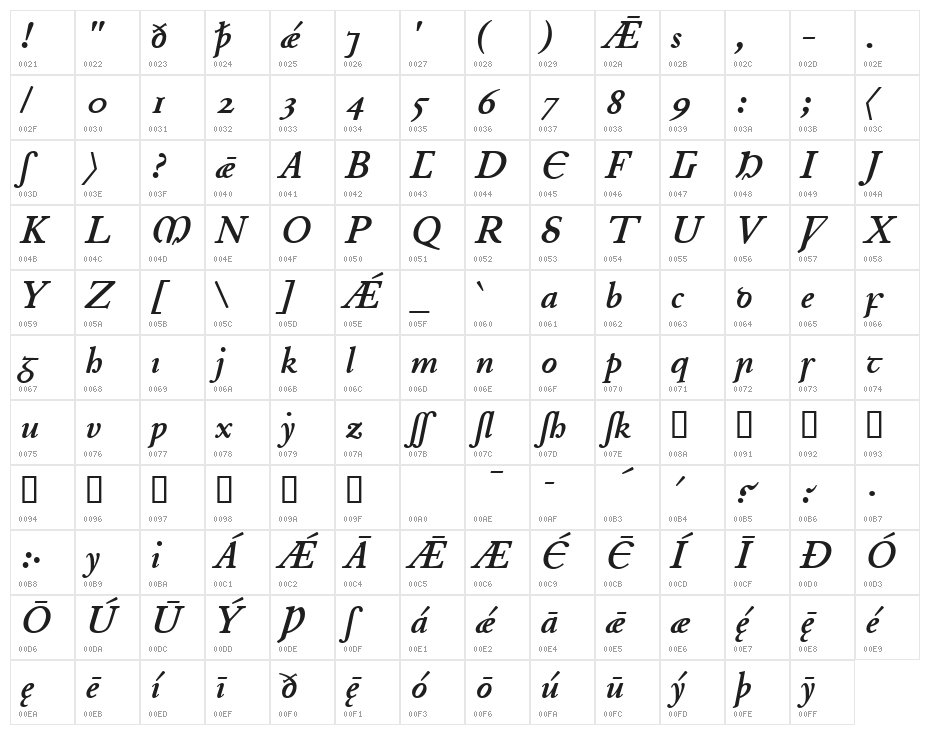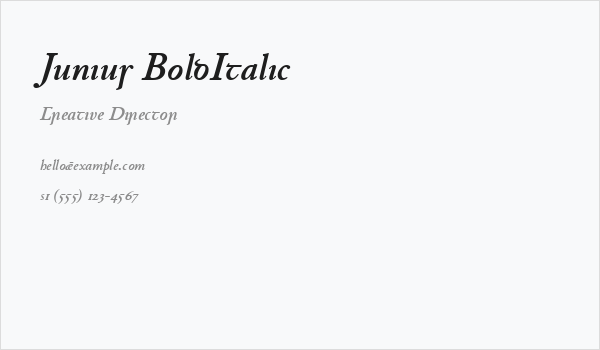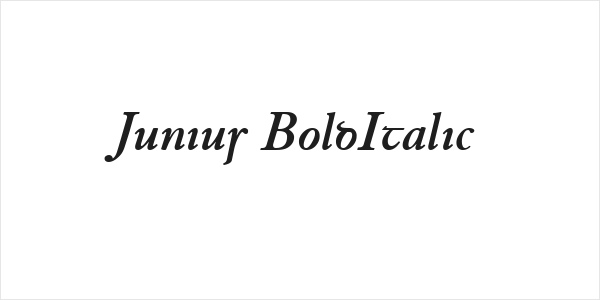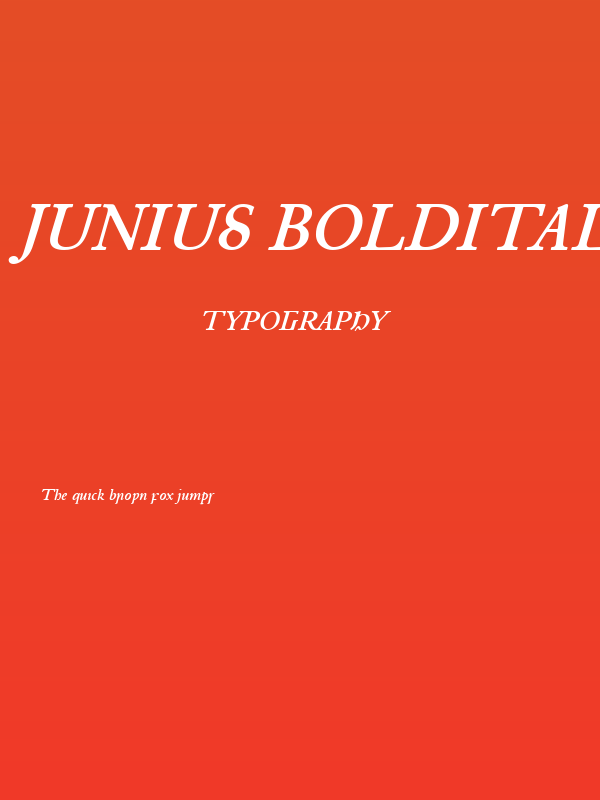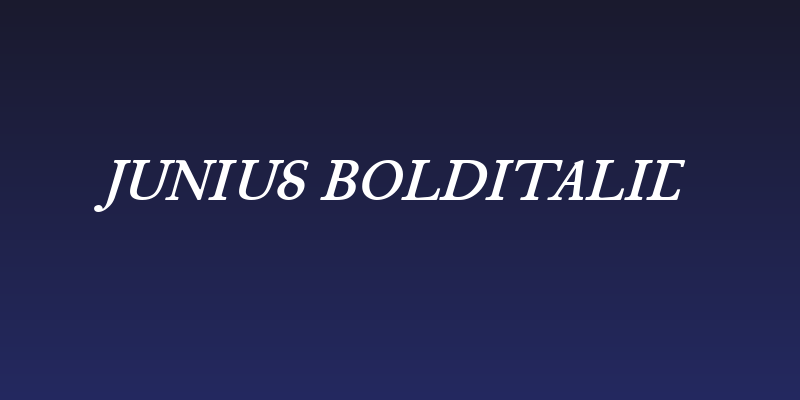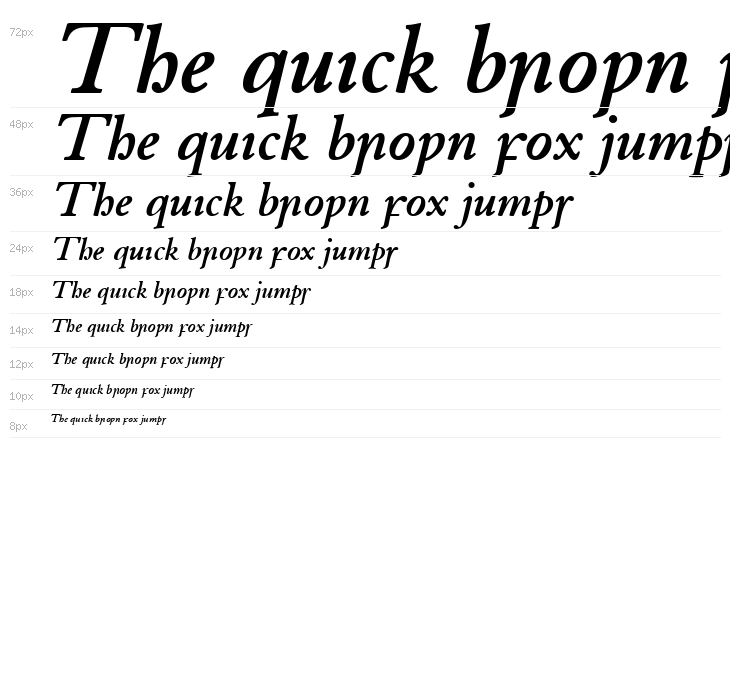
Junius BoldItalic Font
Junius BoldItalic Description
This font exhibits a classic and elegant style with a distinct italic slant, giving it a sophisticated and dynamic appearance. The characters are well-defined with smooth curves and sharp serifs, creating a harmonious balance between tradition and modernity. The uppercase letters are bold and commanding, while the lowercase letters maintain a graceful flow. The numerals are clear and consistent, complementing the overall aesthetic. Special characters are thoughtfully designed, adding to the font's versatility. This font is ideal for projects that require a touch of elegance and readability.
| Use Case | Headlines, Logos, Editorial design |
| Proposed Projects | Ideal for formal invitations, elegant branding, book covers, and editorial design. |